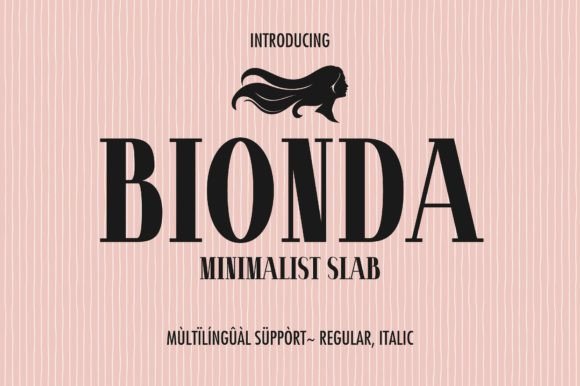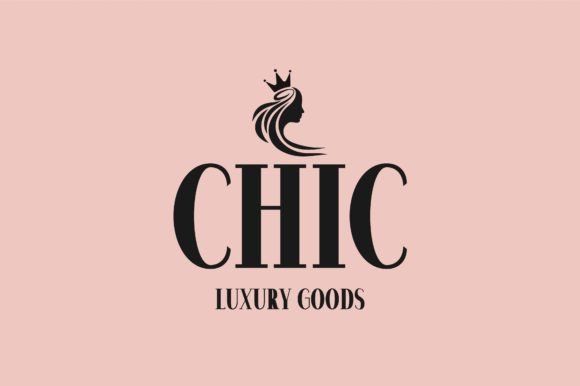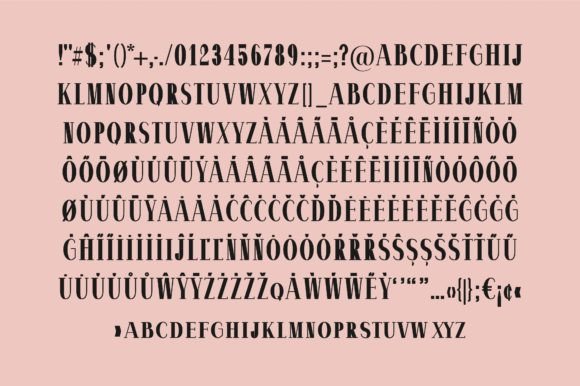
Bionda Font
Bionda: A Classy and Elegant Slab Serif Typeface
Bionda is a classy and elegant slab serif typeface. It combines a casual yet elegant touch, which will undoubtedly elevate any of your designs. This font is perfect for those looking to add a sophisticated flair to their projects.
Key Features of Bionda
• Classy Design: Offers a refined and sophisticated look suitable for various applications.
• Elegant Touch: Brings a sense of elegance and style to designs.
• Versatile Application: Ideal for both casual and formal design contexts.
• Enhances Visual Appeal: Elevates the overall aesthetic of your creative projects.
Ideal Uses for Bionda
Bionda’s unique characteristics make it particularly well-suited for:
When incorporating Bionda into your designs, consider these tips:
• Use for headlines or short blocks of text to showcase its elegant features.
• Experiment with different sizes to highlight the font’s classy appearance.
• Utilize its elegant touch to create designs that convey sophistication and style.
Bionda is an excellent choice for designers looking to add a classy and elegant slab serif typeface to their toolkit. Its ability to enhance the visual appeal of various design projects makes it stand out in the world of typography. Whether you’re working on branding, creating logos, or developing content for fashion and luxury industries, Bionda offers the perfect blend of elegance and versatility.
Furthermore, Bionda’s unique design allows it to shine in various contexts where a refined and sophisticated look is desired. From packaging designs to social media graphics, this font can elevate your projects with its distinctive style. Its classy yet adaptable appearance works particularly well in designs that aim to convey a sense of elegance and exclusivity.
In conclusion, Bionda is a font that truly captures the essence of elegance in modern typography. Its versatility across different applications showcases its adaptability to various creative needs. For those looking to add a touch of refined charm to their work, Bionda can enhance themed creations with its distinctive style. It’s the perfect choice for designers seeking to make a stylish impact across a wide range of creative projects.